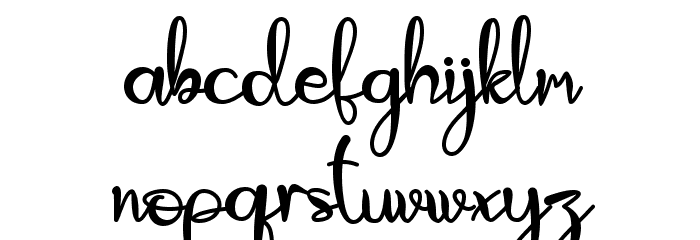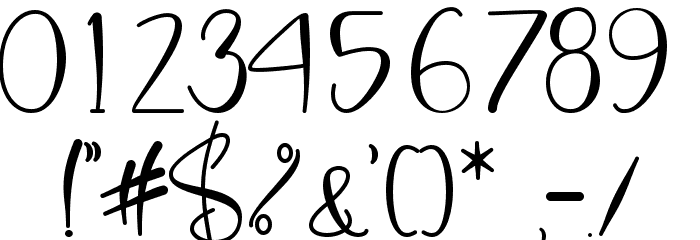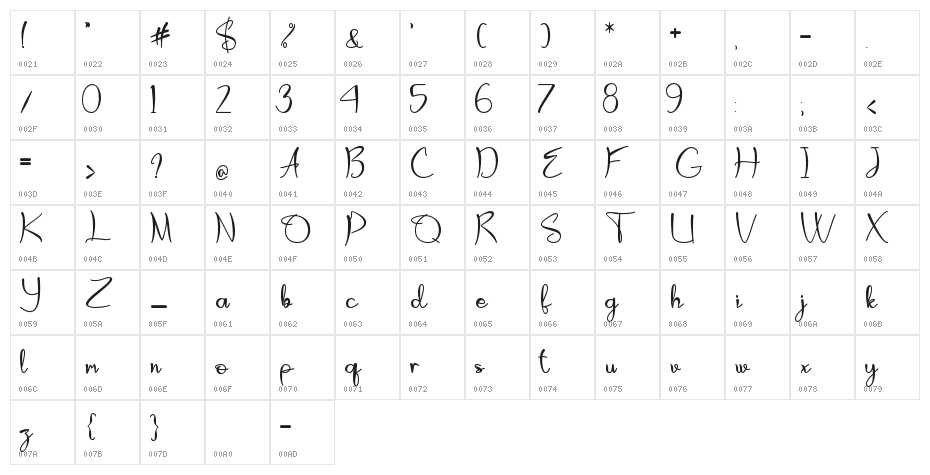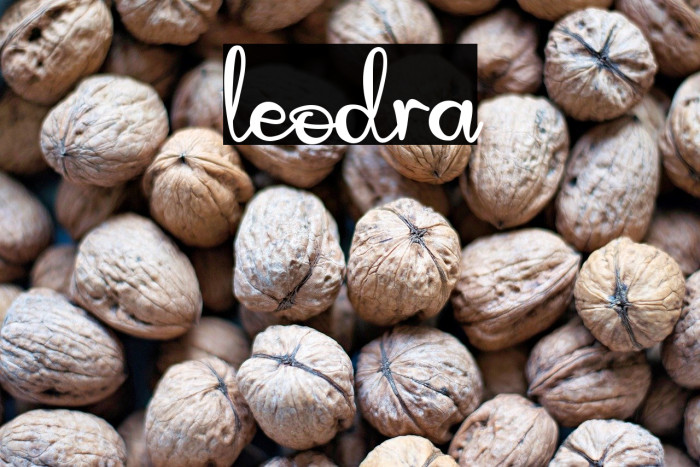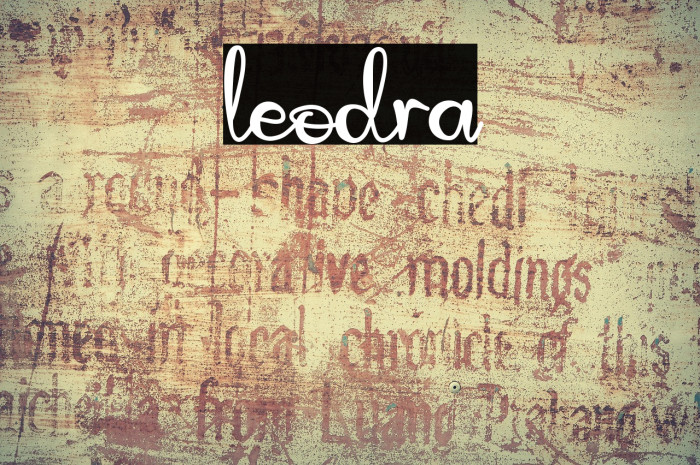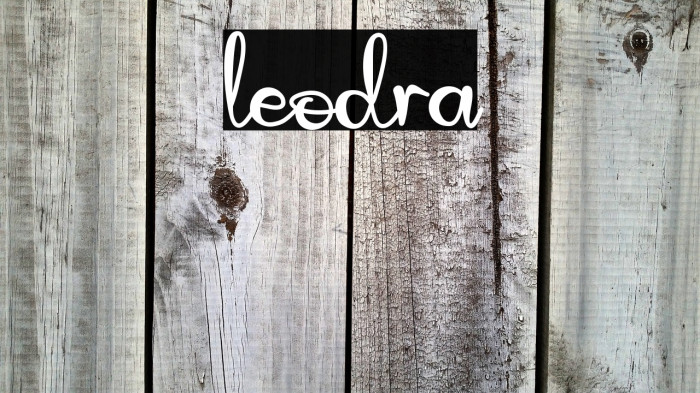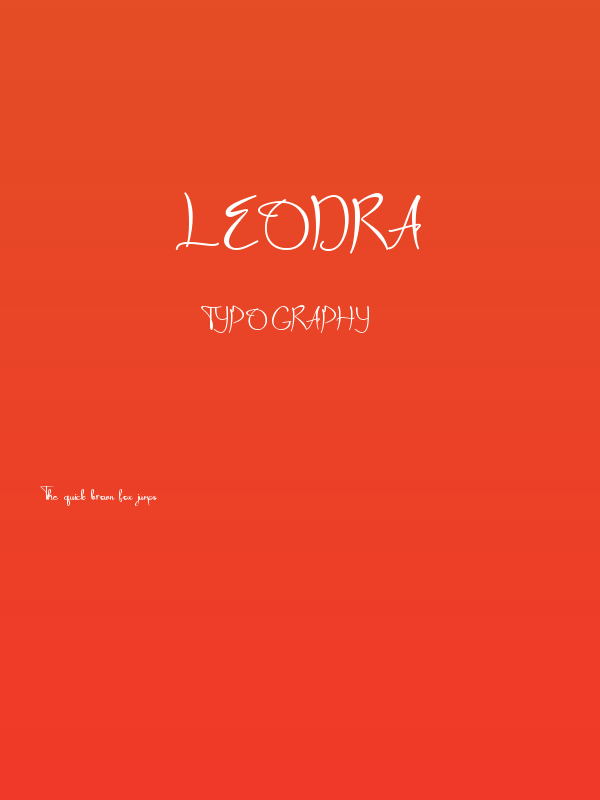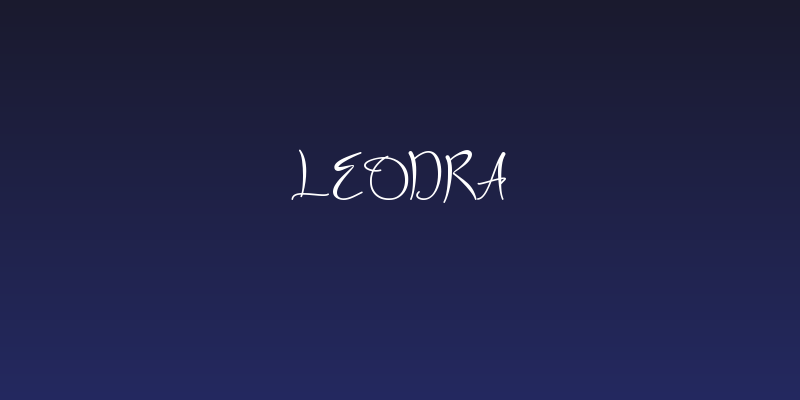
leodra Font
This font features a playful and whimsical style with a handwritten appearance. The uppercase letters are characterized by their flowing, cursive-like strokes, giving them a dynamic and lively feel. The lowercase letters maintain this fluidity, with some letters featuring loops and swirls that add to the font's charm. The numbers are consistent with the overall style, offering a playful yet legible appearance. Special characters are creatively designed, maintaining the font's unique personality. This font is ideal for projects that require a touch of creativity and fun, such as invitations, greeting cards, or playful branding.
A playful, handwritten-style font with dynamic, cursive-like strokes.
- Proposed Projects: Ideal for invitations, greeting cards, playful branding, and creative projects.
- Category: Handwritten
- Overall Style: Playful, Whimsical
- Use Case: Headlines, Logos, Invitations